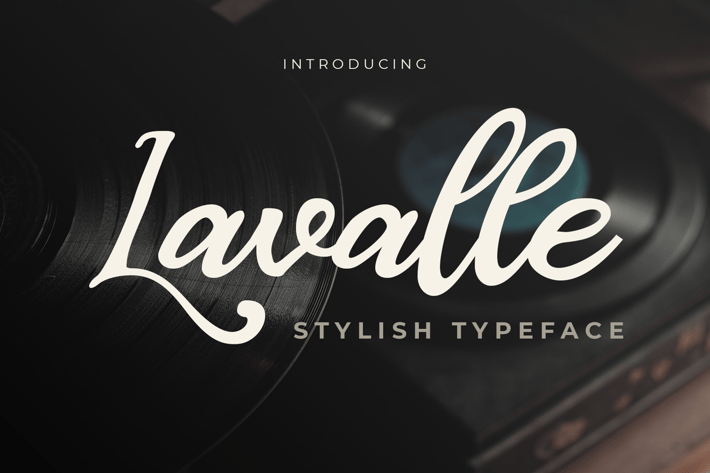
Lavalle Stylish Typeface Font
Lavalle Stylish Script Font, is our new font and suitable for mockup or any work.
Great for
Sticker, Invitation Card, Brochure, etc.